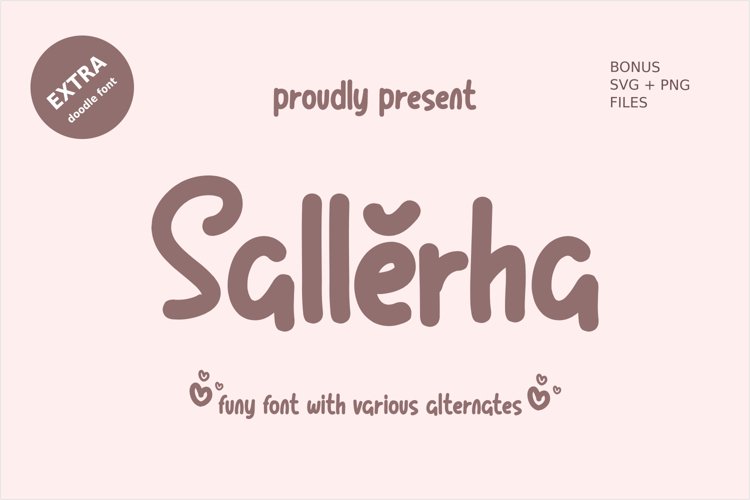
Salleraha is handwriten font, With natural strokes, and gives a very interesting impression, this font is very suitable for use for quotes, poster greetings cards and much more.